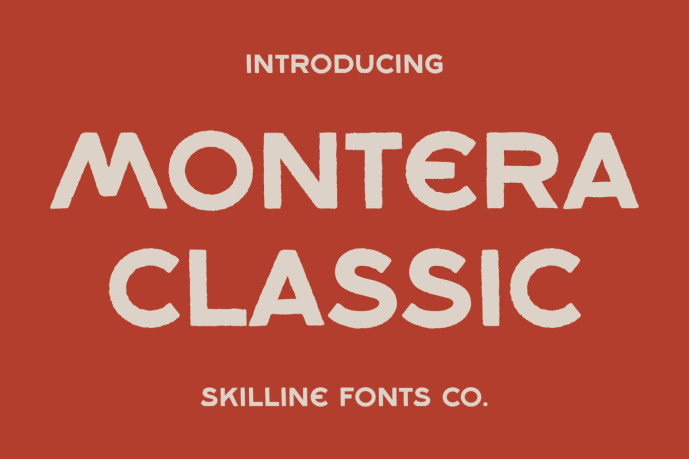
Montera Classic Font
Montera Classic is a handcrafted display sans serif inspired by vintage signage, classic storefront lettering, and traditional painted typography. Softly irregular contours, rounded geometry, and intentionally textured edges create an authentic handcrafted appearance while preserving balanced proportions and clear readability.
Designed with a warm retro spirit, this typeface combines bold forms with subtle imperfections for a distinctive visual rhythm and natural character. It includes multilingual support, complete punctuation, and extended Latin characters, making it a refined display typeface with timeless personality.
Handcrafted Display Sans Serif
Textured Rough Edges
Vintage Retro
Numerals & Punctuation
Multi Language